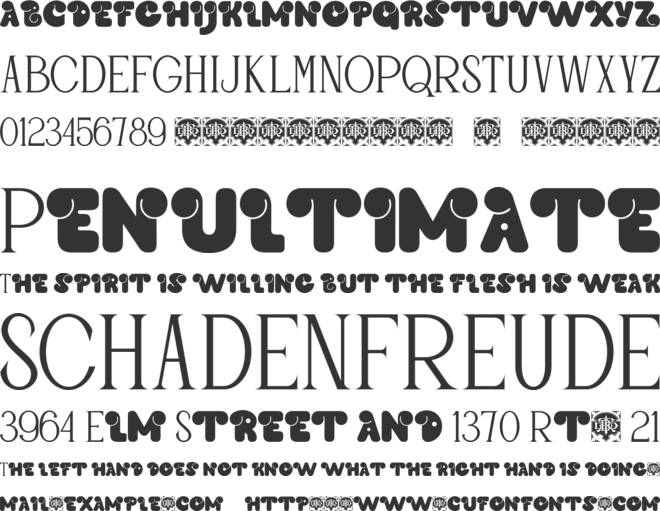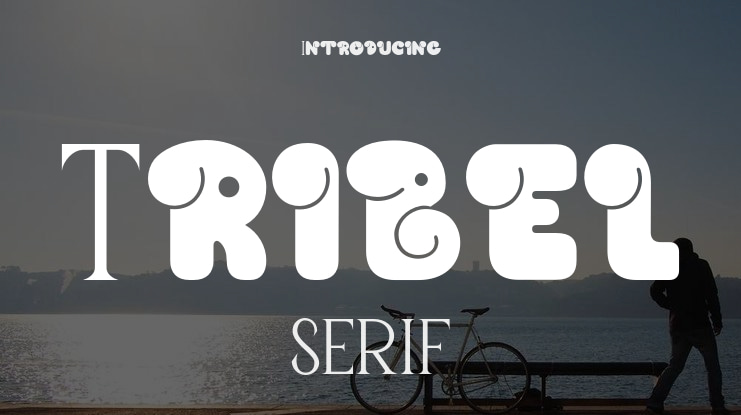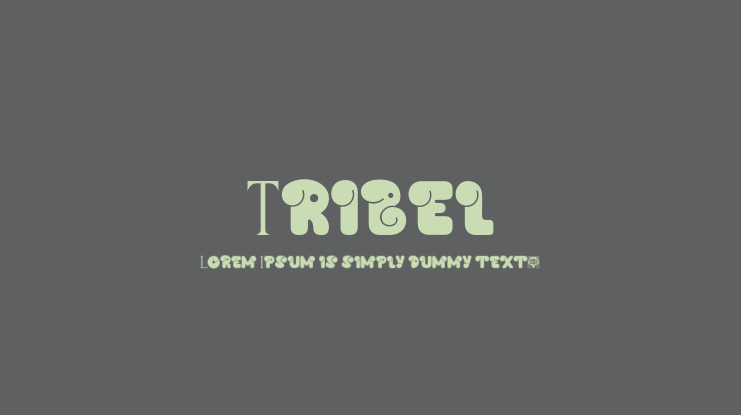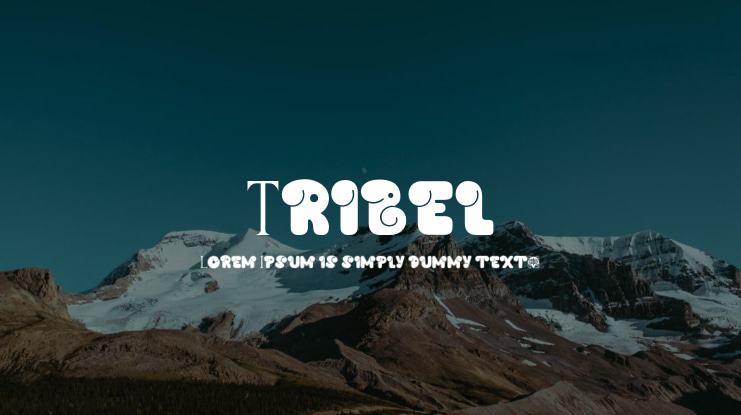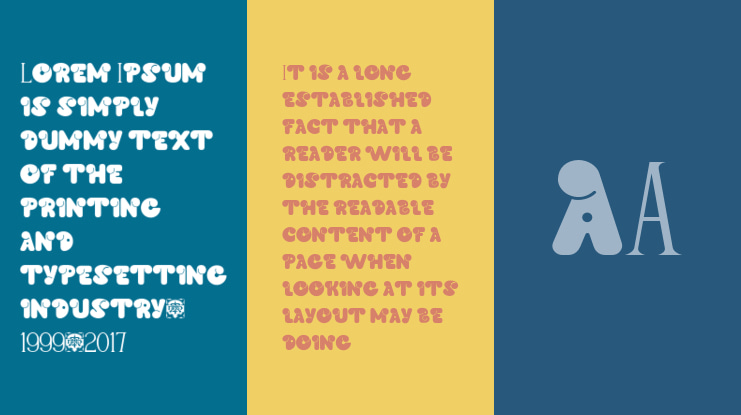
Tribel Font
We are proud to present Tribel, a hybrid typeface that combines the playful, rounded forms of a bubble font with the structured, classic lines of a serif typeface. This unique combination results in a typeface that exudes both fun and sophistication, making it perfect for projects aiming to capture a modern, urban aesthetic. Whether you are designing for streetwear brands, creative posters, or contemporary logos, this hybrid typeface offers versatility and a fresh, dynamic look.